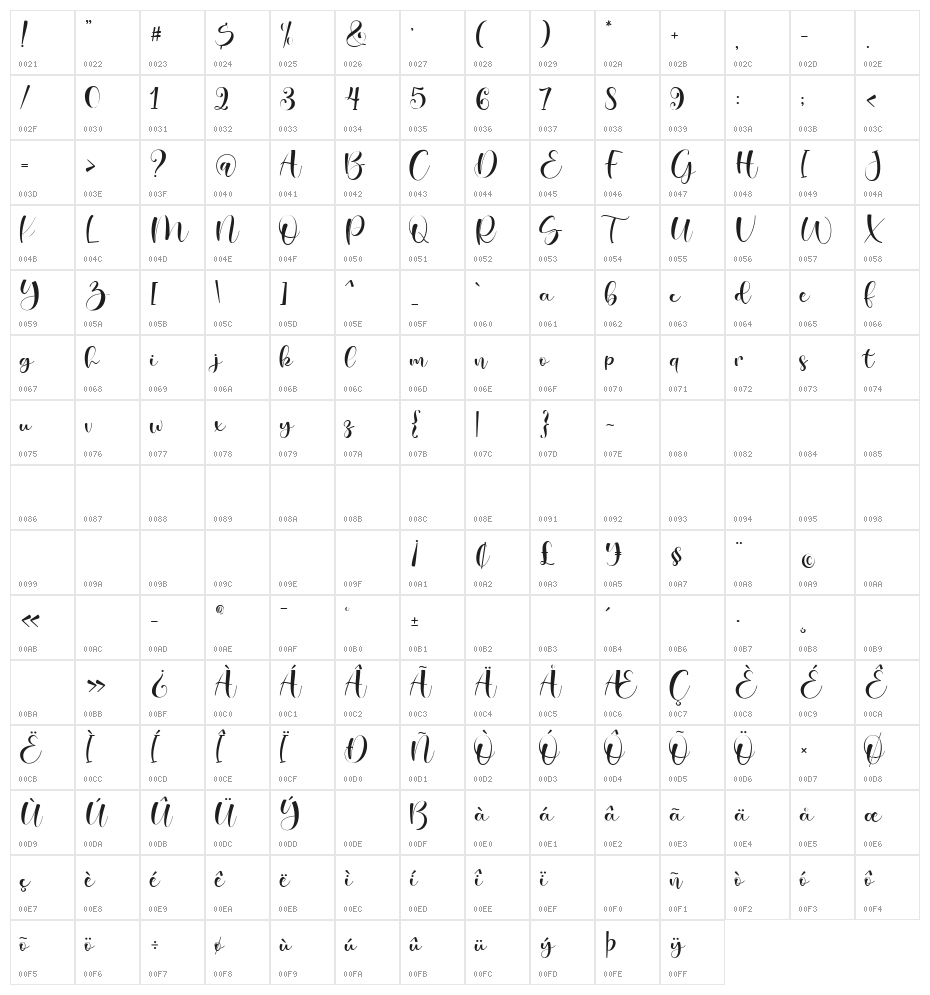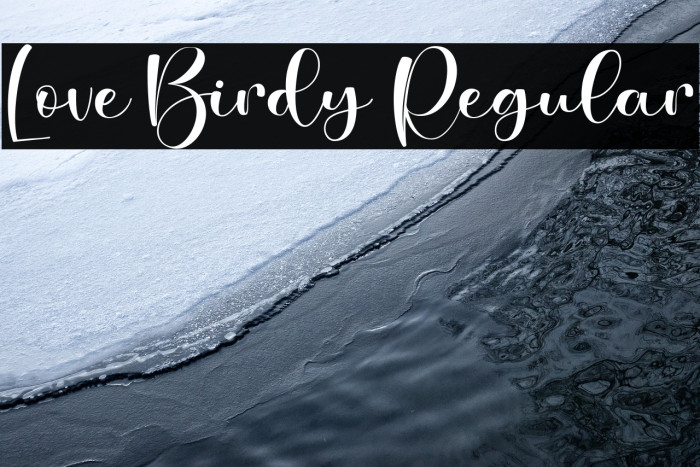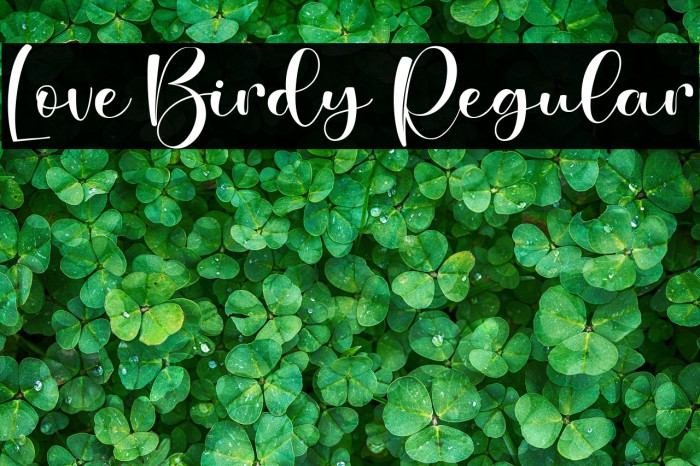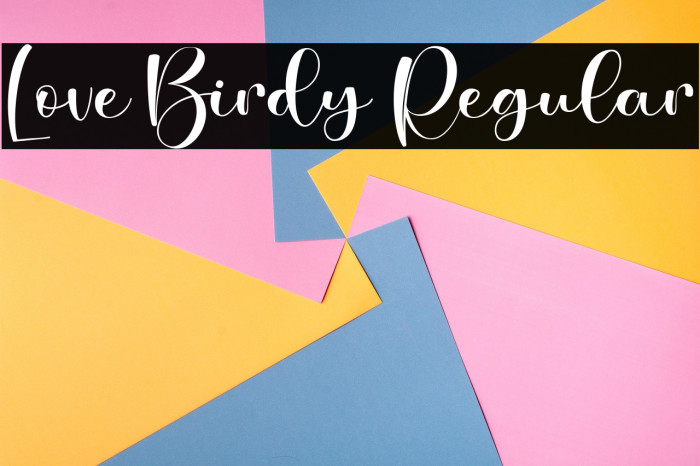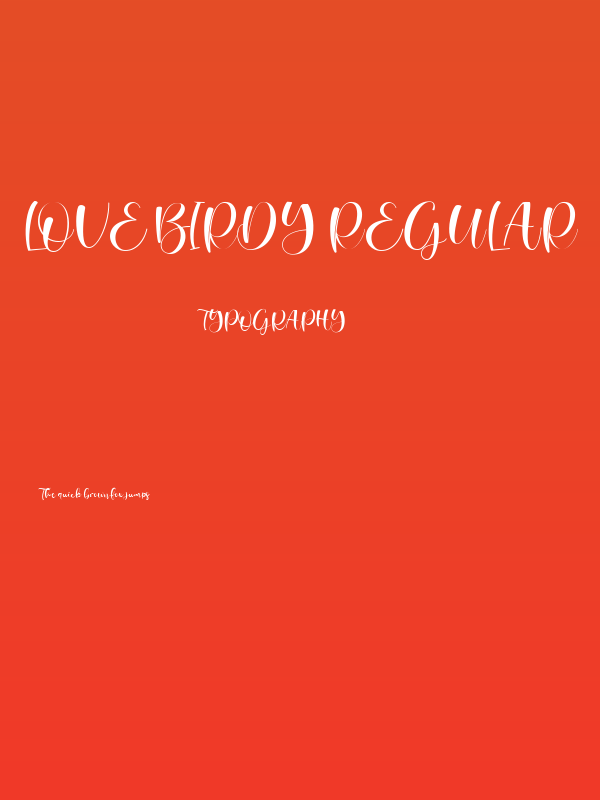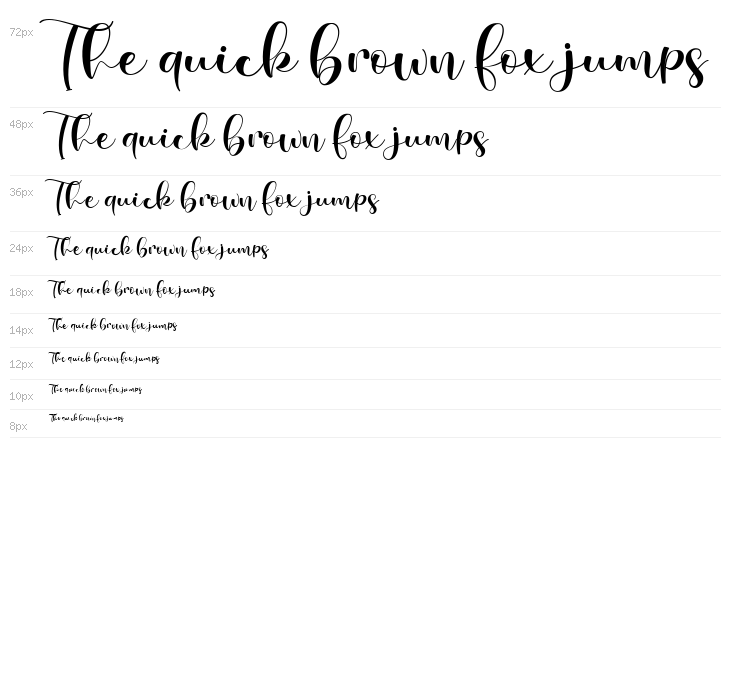
Love Birdy Regular Font
Love Birdy Regular Description
This font features a flowing, cursive style with elegant loops and swashes, giving it a romantic and whimsical appearance. The uppercase letters are bold and expressive, while the lowercase letters maintain a consistent flow with delicate connections. The numerals are stylishly integrated with the same cursive flair, and the special characters complement the overall aesthetic. The font's design is perfect for adding a touch of elegance and sophistication to any project.
| Proposed Projects | Ideal for wedding invitations, greeting cards, branding, and decorative projects. |